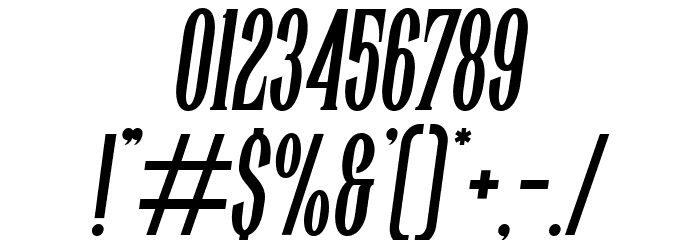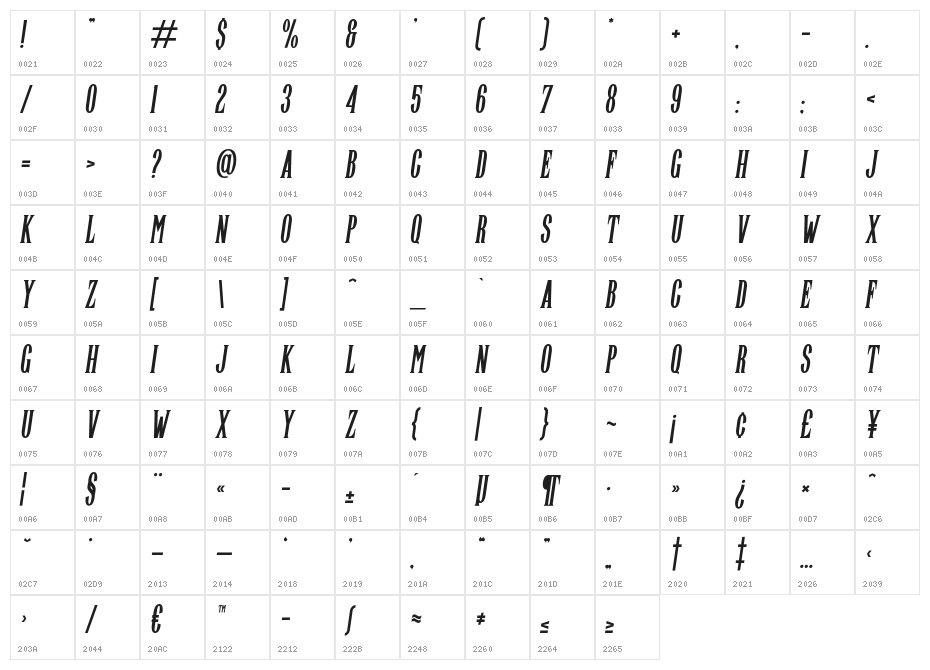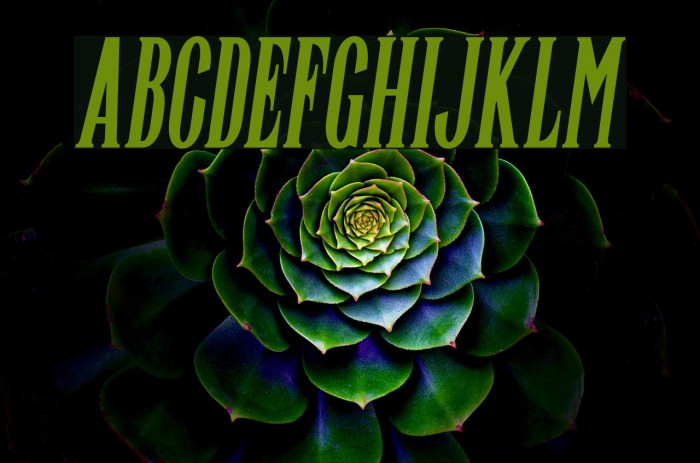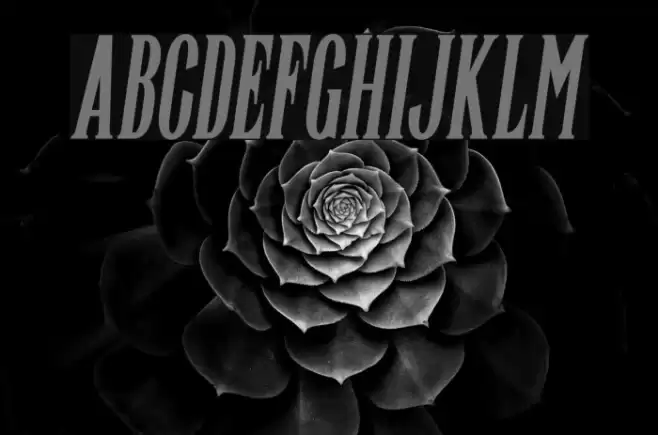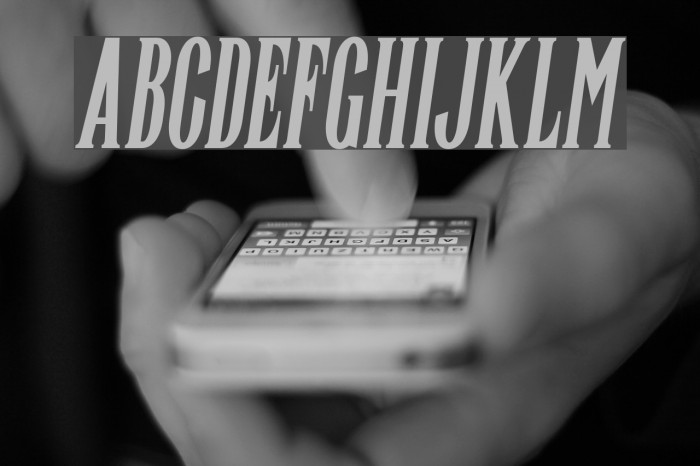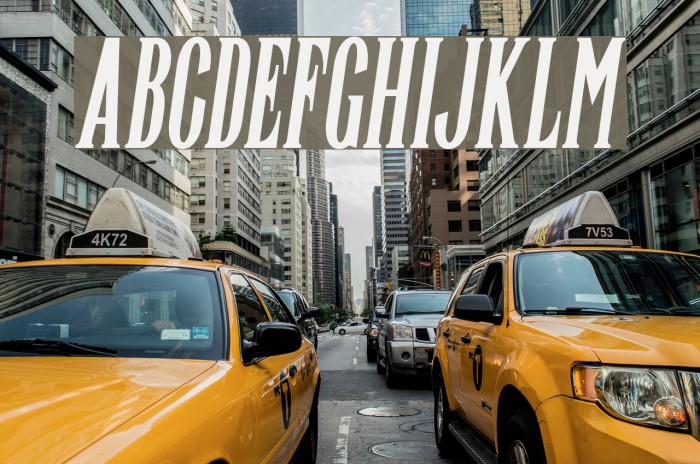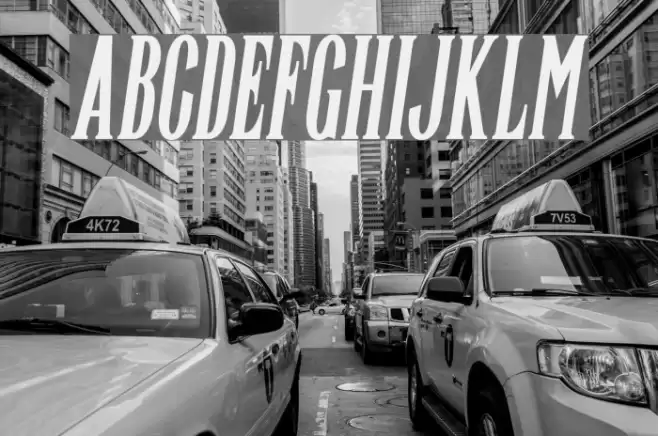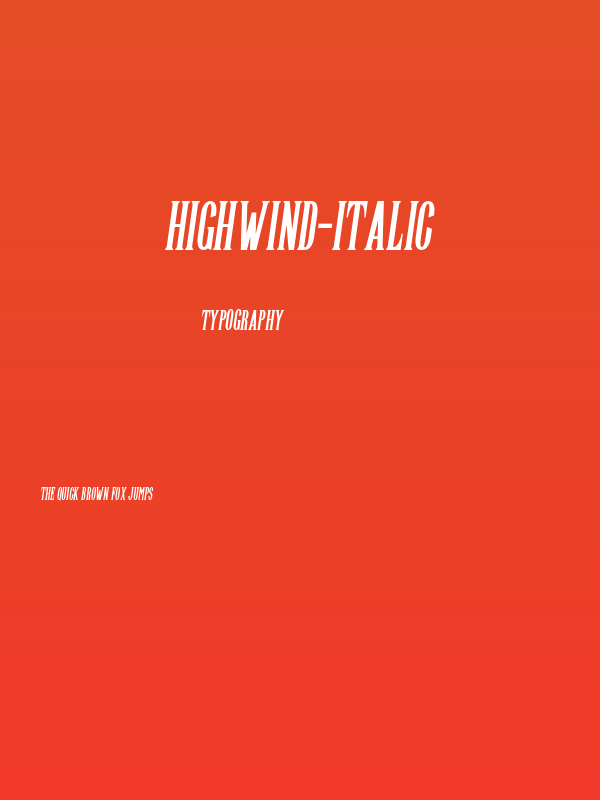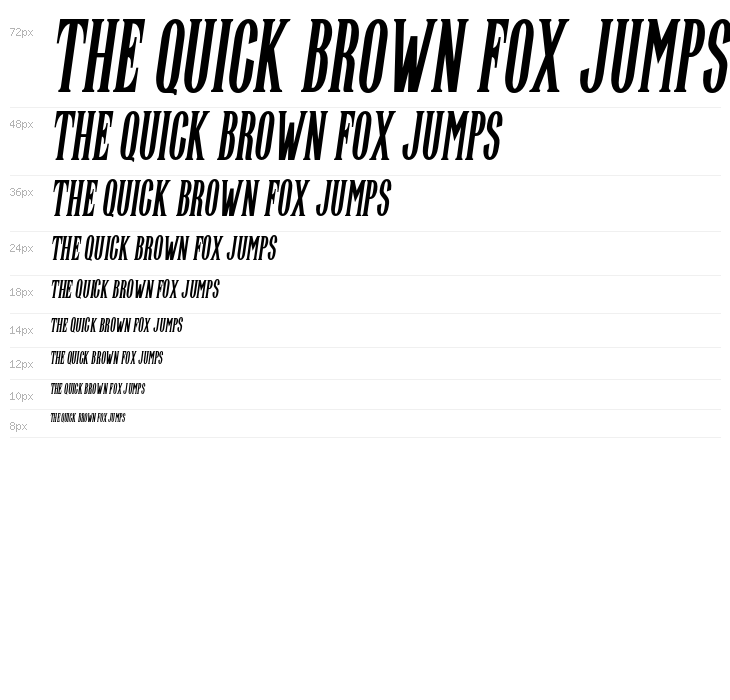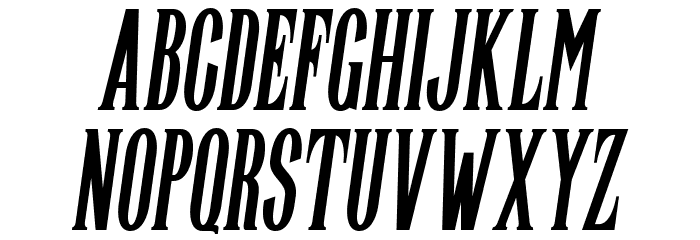
Highwind-Italic Font
Highwind-Italic Description
This font features a bold and dynamic italic style, characterized by its elongated and slightly condensed letterforms. The strokes are thick, providing a strong presence, while the slanted orientation adds a sense of movement and energy. The uppercase and lowercase letters maintain a consistent style, with sharp serifs that enhance the font's assertive appearance. The numbers and special characters are designed to match the overall aesthetic, ensuring uniformity across all glyphs. This font is ideal for projects that require a bold statement or a modern, energetic feel.
| Proposed Projects | Ideal for headlines, posters, branding, and any design needing a strong, dynamic presence. |